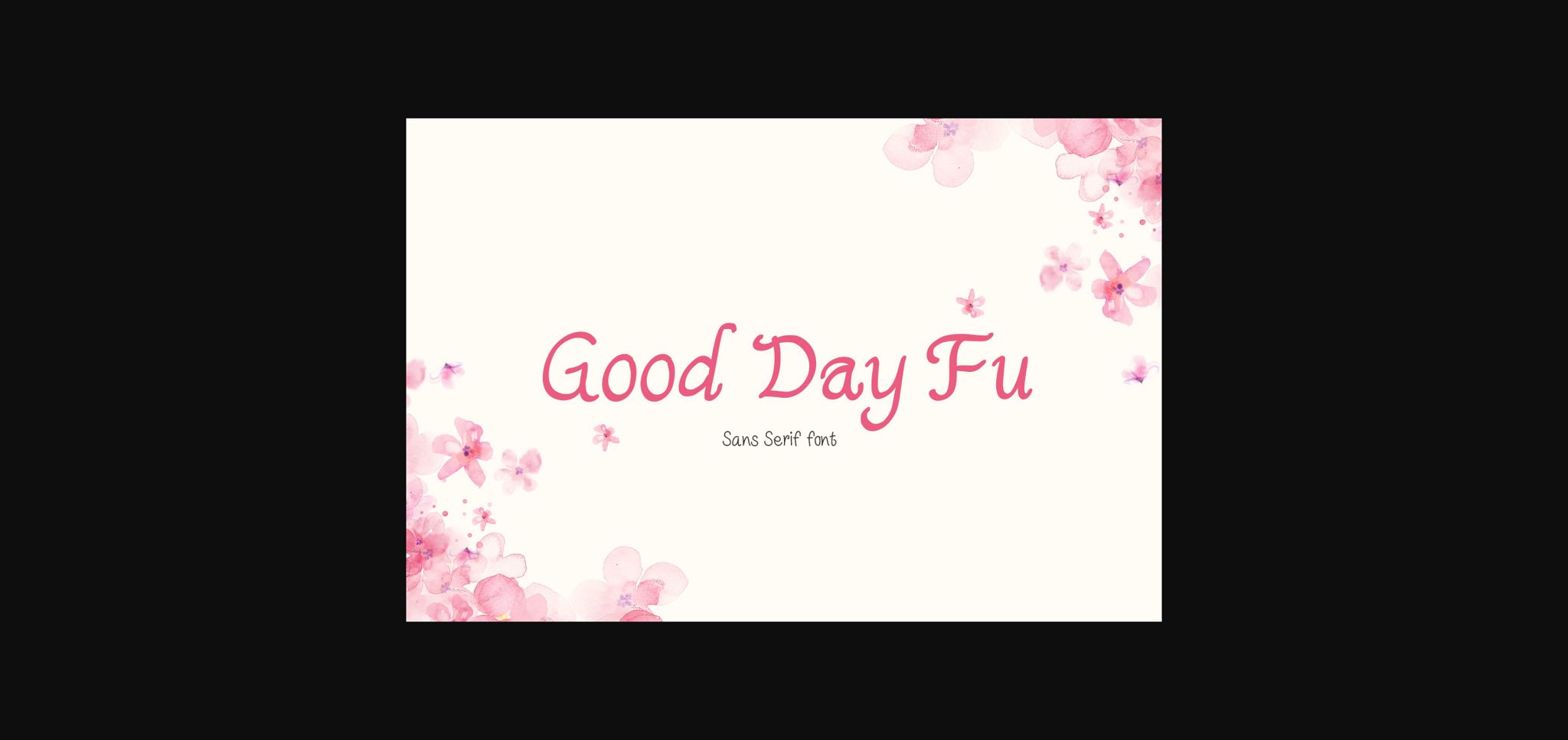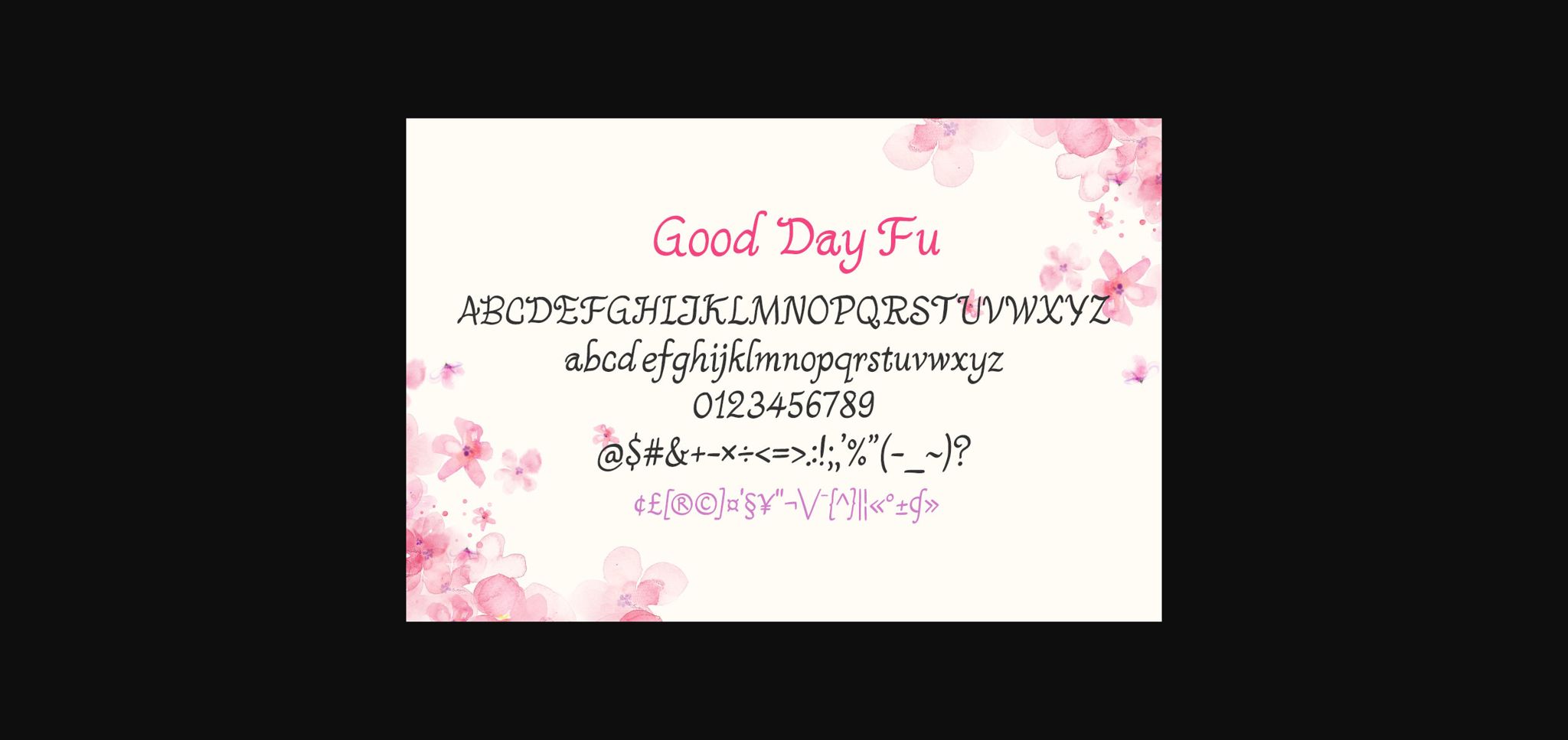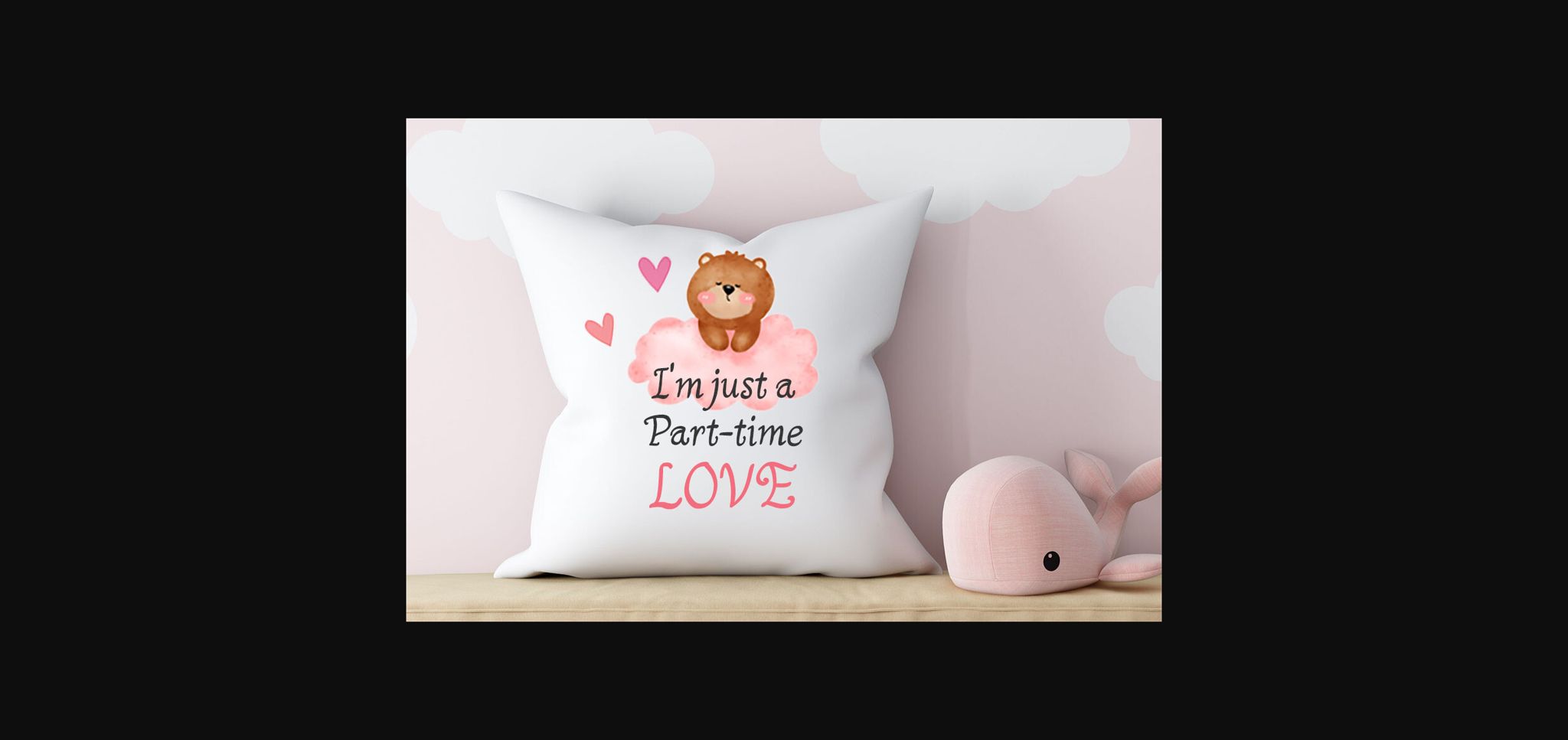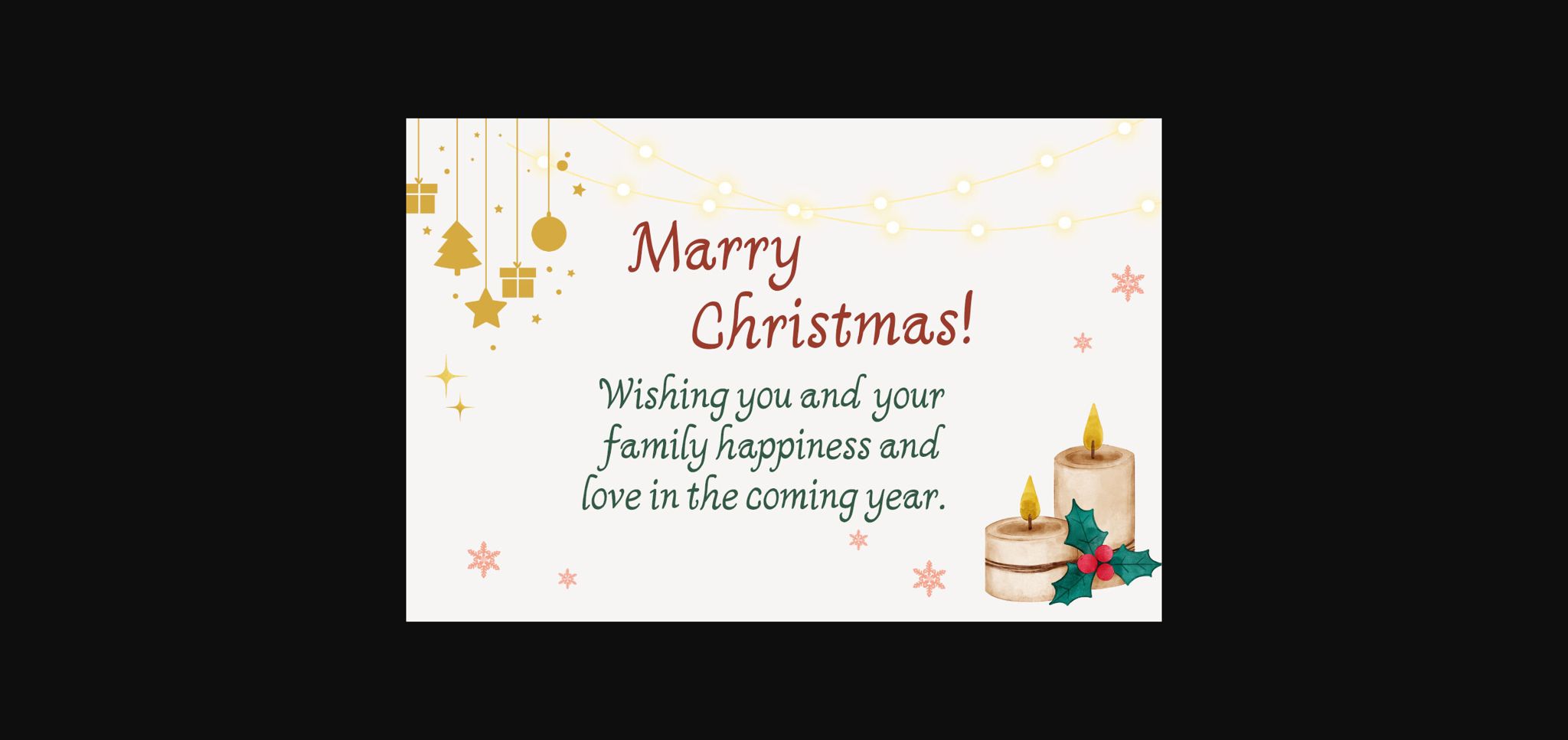
About Good Day Fu Font
Good Day Fu is a ravishing, cute and friendly sans serif font. It looks amazing on wedding invitations, thank you cards, quotes, greeting cards, invitations, Fall, Halloween, Christmas, posters, logos, business cards and other designs. so add it to your creative ideas and take your designs to the next level!